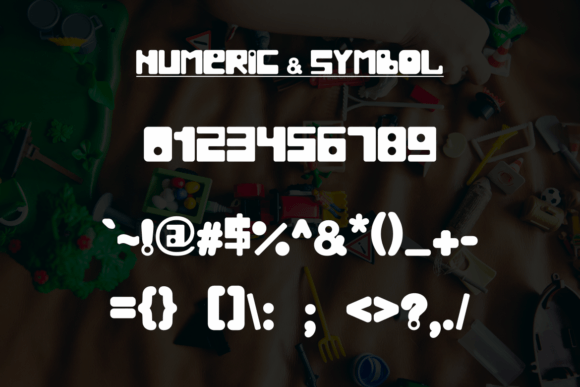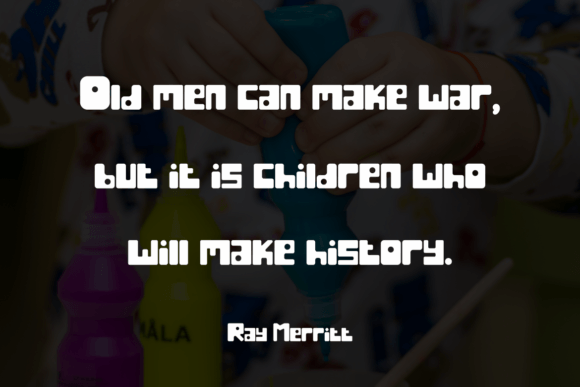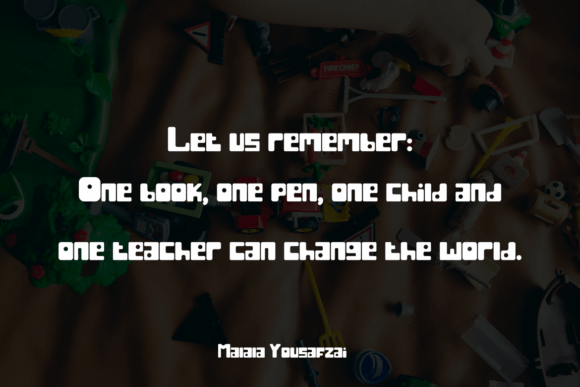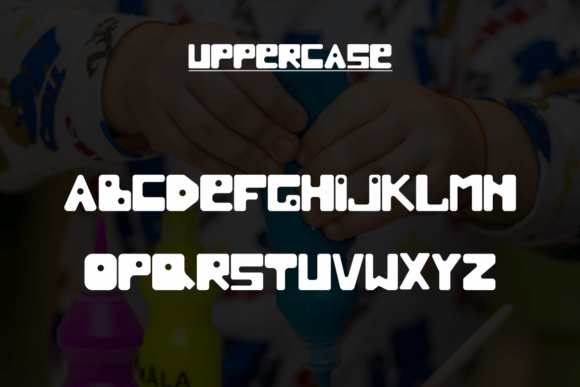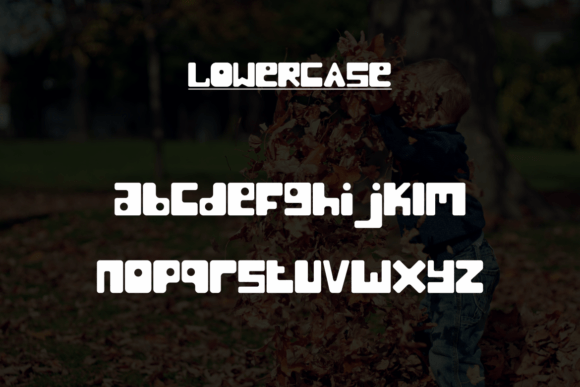
Introducing Espacio Font: The Fun and Playful Display Font to Brighten Up Your Designs
Are you tired of using the same old fonts in your designs? Do you want to add a touch of fun and playfulness to your creations? Look no further than Espacio Font! This cheerful yet confident display font is sure to brighten up each design you wish to create. In this article, we’ll take a closer look at Espacio Font, its features, and how you can use it to take your designs to the next level.
What is Espacio Font?
Espacio Font is a modern display font that is designed to add a touch of fun and playfulness to your designs. Its unique and cheerful personality makes it perfect for a wide range of design projects, from posters and flyers to social media graphics and website headers. With its bold and confident style, Espacio Font is sure to grab attention and leave a lasting impression.
Key Features of Espacio Font
So, what makes Espacio Font so special? Here are some of its key features:
- Fun and playful personality: Espacio Font has a unique and cheerful personality that is sure to brighten up any design.
- Bold and confident style: This display font is designed to grab attention and leave a lasting impression.
- Modern and fresh look: Espacio Font has a modern and fresh look that is perfect for a wide range of design projects.
- Easy to read: Despite its bold and playful style, Espacio Font is easy to read, even at smaller sizes.
How to Use Espacio Font in Your Designs
Espacio Font is a versatile display font that can be used in a wide range of design projects. Here are some ideas to get you started:
- Posters and flyers: Use Espacio Font to create eye-catching posters and flyers that grab attention.
- Social media graphics: Add a touch of fun and playfulness to your social media graphics with Espacio Font.
- Website headers: Use Espacio Font to create bold and confident website headers that make a lasting impression.
- Logos and branding: Espacio Font can be used to create unique and memorable logos and branding materials.
Tips for Using Espacio Font Effectively
Here are some tips for using Espacio Font effectively in your designs:
- Use it sparingly: Espacio Font is a bold and confident font, so use it sparingly to avoid overwhelming your design.
- Pair it with other fonts: Espacio Font pairs well with other fonts, so experiment with different combinations to find the perfect look for your design.
- Experiment with colors: Espacio Font looks great in a wide range of colors, so experiment with different colors to find the perfect look for your design.
| Font Name | Espacio Font |
| Author | zerologicstudio |
In conclusion, Espacio Font is a fun and playful display font that is sure to brighten up each design you wish to create. With its bold and confident style, modern and fresh look, and easy readability, Espacio Font is perfect for a wide range of design projects. Whether you’re a designer, crafter, or DIY enthusiast, Espacio Font is a great addition to your font collection.